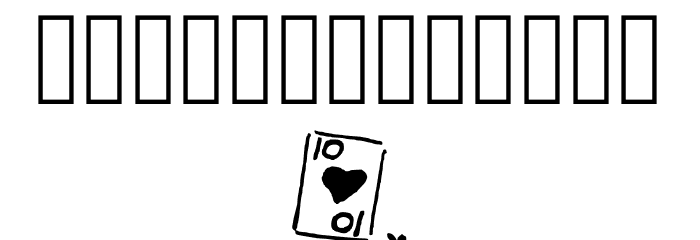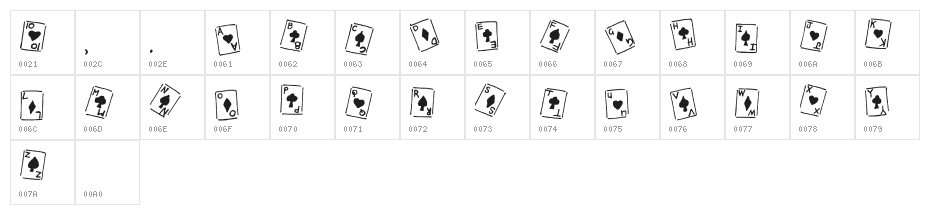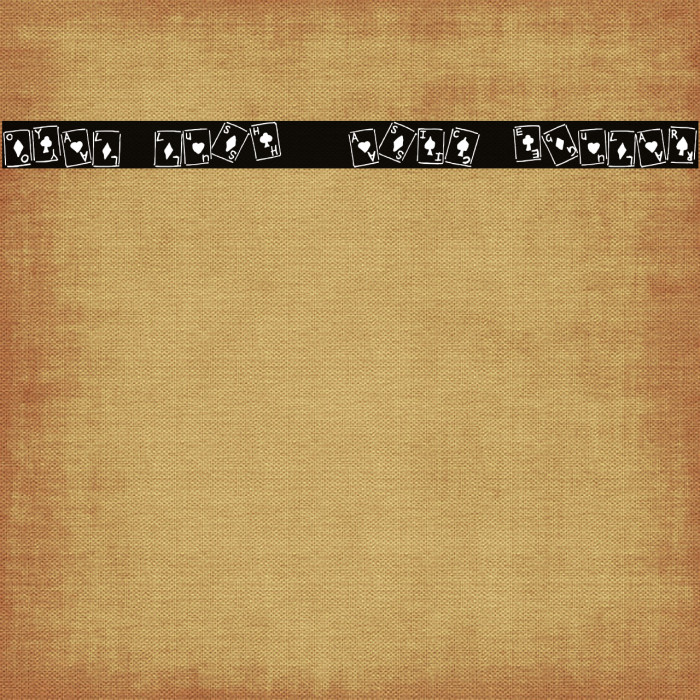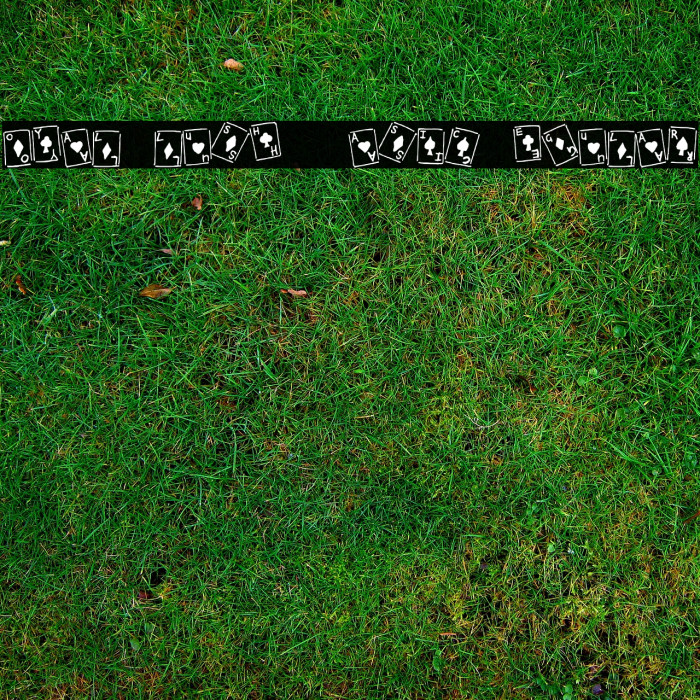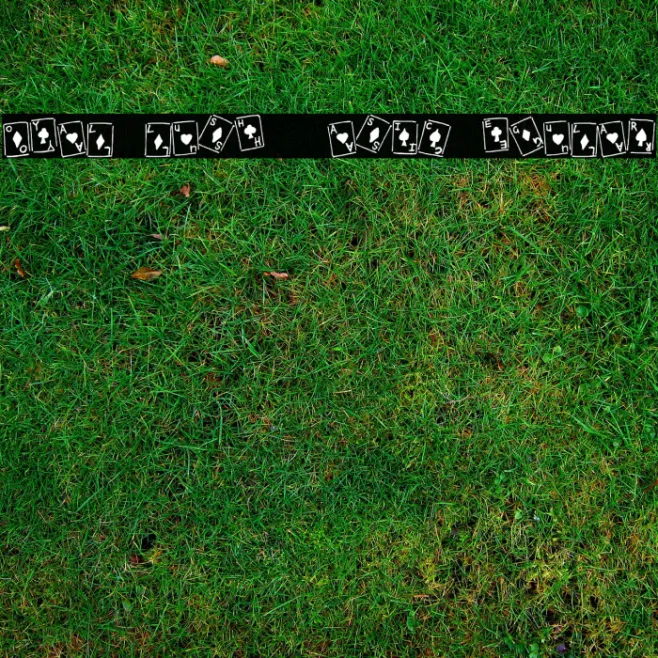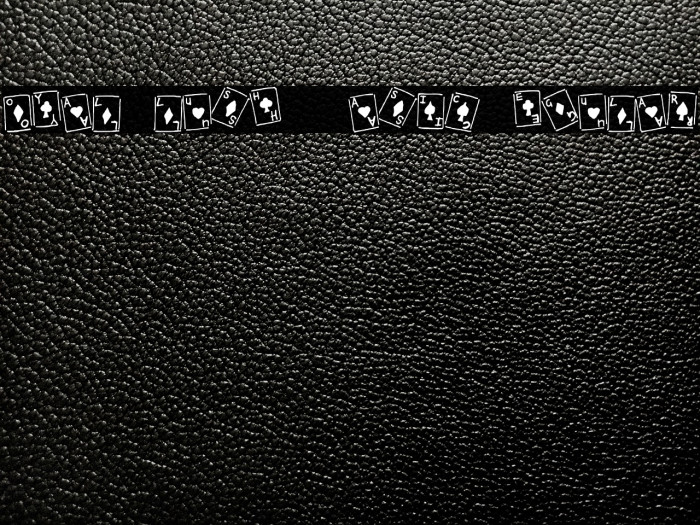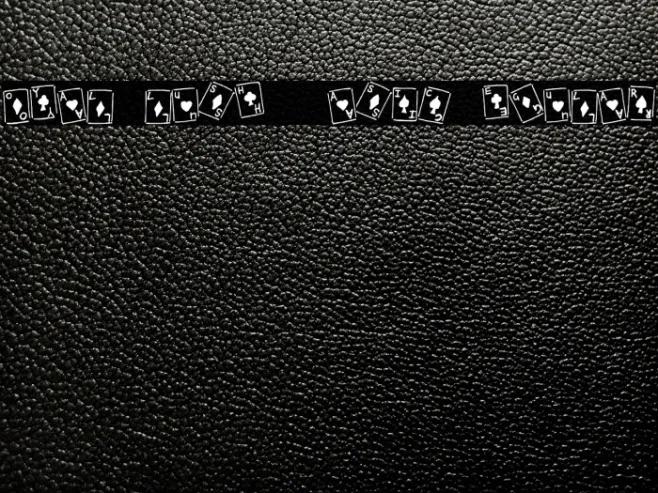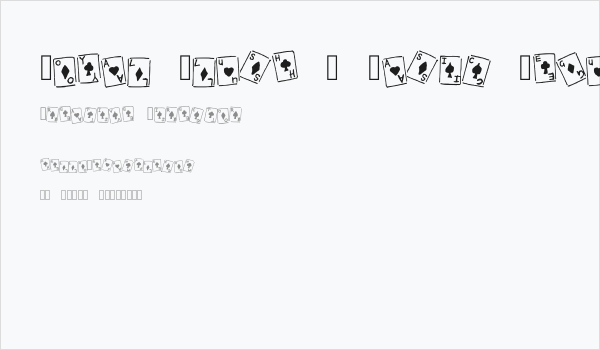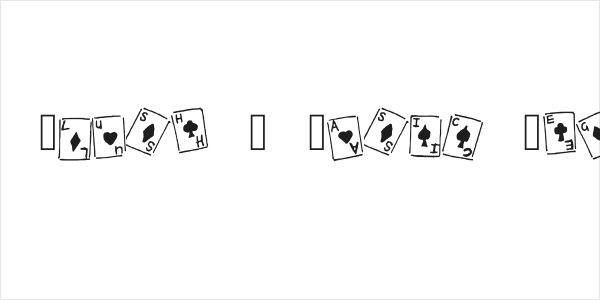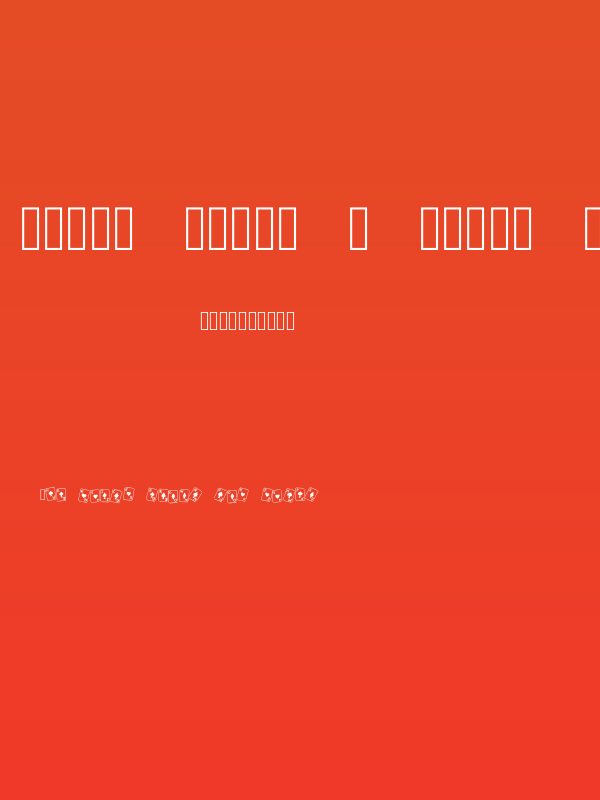
Royal Flush _ Basic Regular Font
Royal Flush _ Basic Regular Description
This font features a playful and thematic design, where each letter is creatively embedded within a playing card. The cards are slightly tilted, adding a dynamic and whimsical feel. The suits of hearts, spades, diamonds, and clubs are prominently displayed, enhancing the casino or card game theme. The characters are bold and clear, making them easily readable despite the decorative elements. This font is perfect for projects that require a fun, game-related aesthetic, such as casino-themed events, game night invitations, or playful branding.
| Proposed Projects | Ideal for casino-themed events, game night invitations, playful branding, or any project needing a fun, game-related aesthetic. |